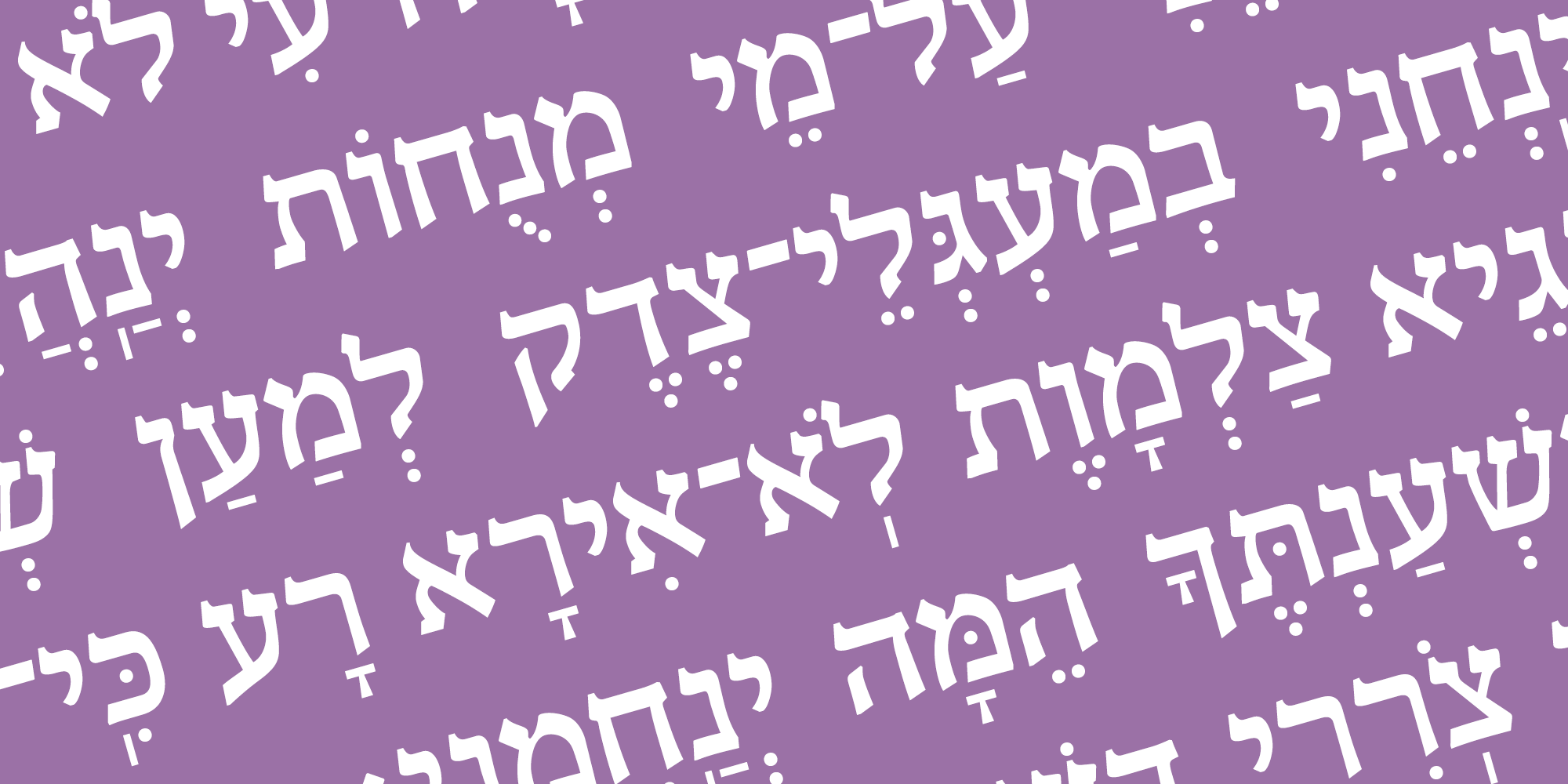
Hebrew Liane Std Font is perfect for religious Hebrew texts, Torah study materials, synagogue publications, Jewish wedding invitations, bar mitzvah certificates, Hebrew educational resources, Israeli business communications, Judaica design projects, Hebrew calligraphy workshops, and multilingual publications where elegant Hebrew typography preserves cultural heritage and enhances readability.
What makes Hebrew Liane Std Font exciting is its sophisticated balance of traditional Hebrew calligraphic principles with contemporary typographic refinement that honors the sacred nature of Hebrew script while ensuring modern accessibility. This font features beautifully proportioned Hebrew letterforms with elegant curves, proper spacing, and authentic character relationships that reflect centuries of Hebrew scribal tradition. The refined styling and cultural authenticity make it ideal for applications requiring both religious reverence and contemporary design sophistication.
Hebrew Liane Std Font family includes Regular weight with comprehensive Hebrew character coverage, nikud (vowel points), cantillation marks, and special Hebrew typographic elements essential for religious and educational texts. The family also features Latin character support for bilingual applications, ensuring seamless integration between Hebrew and English text. Each element maintains authentic Hebrew proportions while providing modern typographic functionality for diverse publishing requirements.
The Hebrew Liane Std Font Free Download offers designers and publishers access to premium Hebrew typography that serves both religious communities and secular applications. This font's cultural authenticity makes it exceptional for Jewish cultural publications, Hebrew language learning materials, and interfaith communications where accuracy and respect for Hebrew traditions are paramount. Its versatility extends to digital Hebrew content, online Jewish resources, and contemporary Hebrew design applications.
Hebrew Liane Std Font supports extensive Hebrew character sets including final letter forms, ligatures, and specialized marks necessary for complete Hebrew text composition. The font's carefully calibrated metrics ensure proper Hebrew text flow and spacing while maintaining the elegant character that defines quality Hebrew typography. Its scalability preserves Hebrew letter clarity and cultural authenticity from small prayer book text to large ceremonial display applications.
The font's dignified presence makes it particularly effective for religious ceremonies, Jewish cultural events, and Hebrew educational materials where tradition and readability are essential for meaningful communication. Whether designing Hebrew prayer books, Jewish community newsletters, or Hebrew language curricula, Hebrew Liane Std Font delivers authentic Hebrew typography that honors cultural heritage while serving contemporary Jewish communities and Hebrew language enthusiasts effectively.